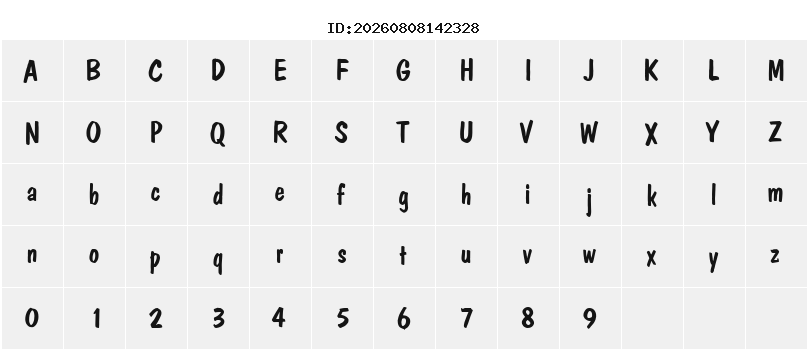
• Font Name: PolCasual
PolCasual.ttf is a modern, elegant sans-serif font designed for ultimate readability and visual harmony. Perfect for branding, headlines, web design, and print materials.